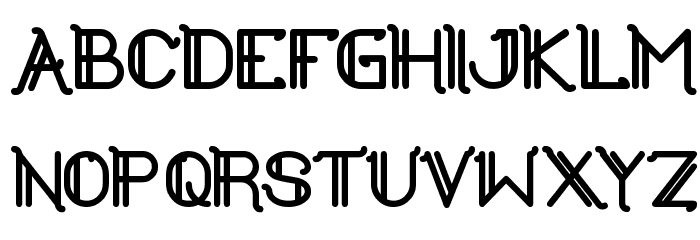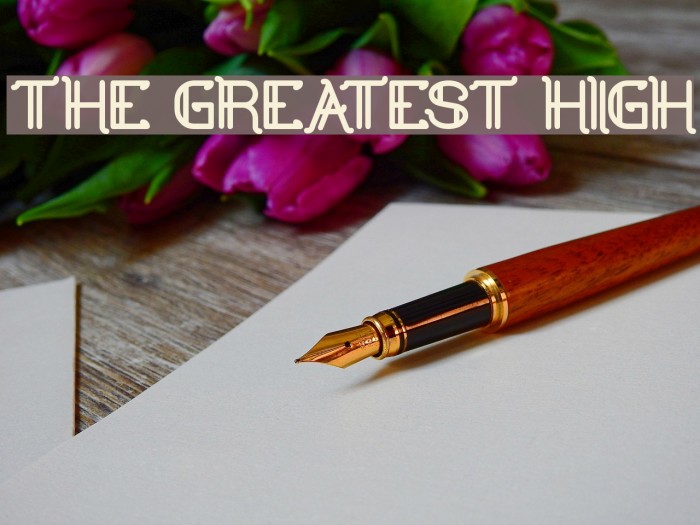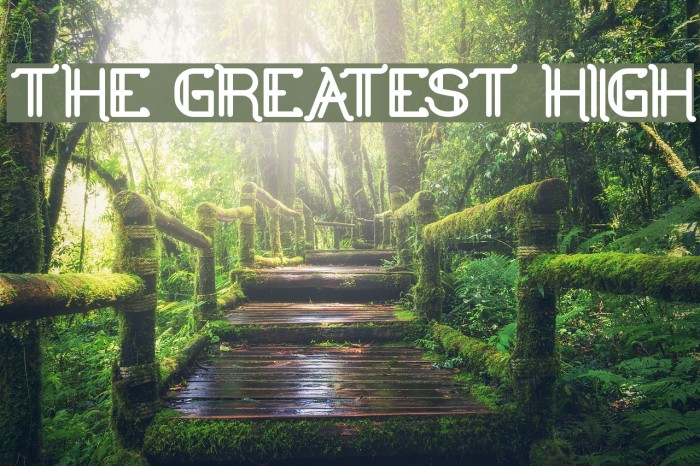
the greatest high Font
This font features a unique and decorative style with a modern twist. The characters are bold and have a distinct geometric design, incorporating rounded edges and consistent line thickness. The uppercase letters are particularly striking, with a futuristic and artistic flair that makes them stand out. The font maintains a uniform appearance across all characters, providing a cohesive look. Its design is both eye-catching and readable, making it suitable for a variety of creative applications.
A bold, geometric, and decorative font with a modern flair.
- Proposed Projects: Ideal for branding, posters, album covers, and any project requiring a modern and artistic touch.